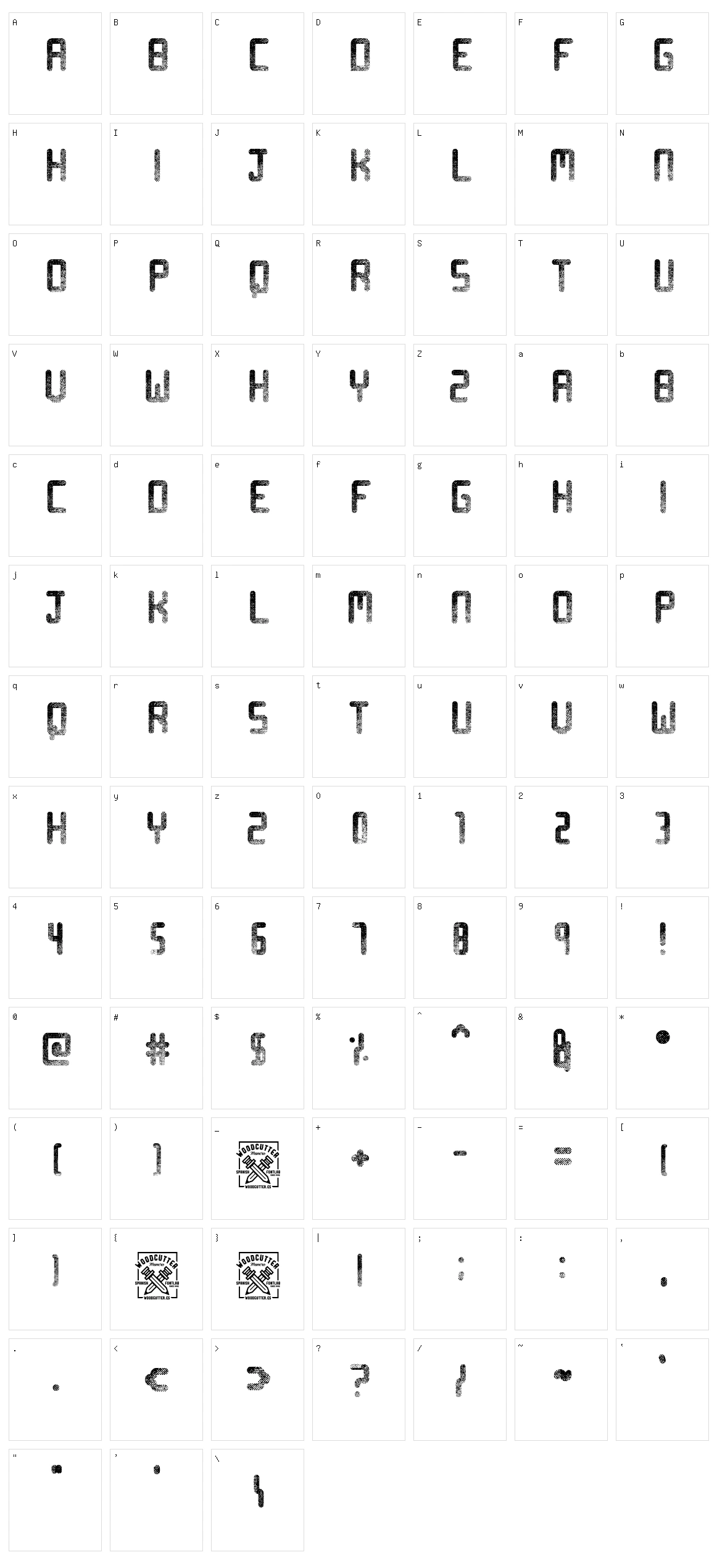
The free font Sprinkled is carefully designed by Woodcutter, showcasing a thoughtful balance of creativity and usability and falls under the Eroded font style. When you download the ZIP file, it contains only 559.92 KB of font files, making it lightweight and quick to download. Please review the license details below to understand permitted usage and distribution rights. If license information is not available, we recommend using this font for personal projects only or contacting the author directly for commercial usage permissions.